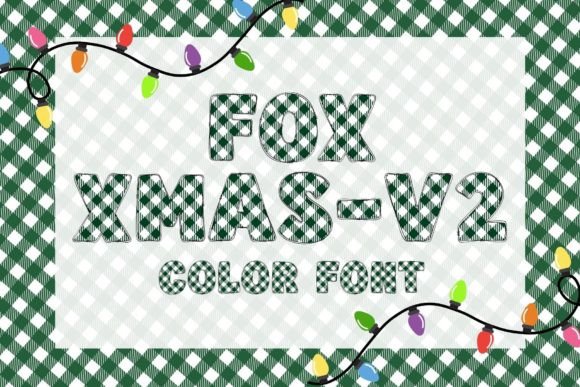
Welcome to the enchanting world of Fox Xmas-v2, a burst of colorful joy that will captivate your senses. Bask in the warmth of its playful spirit, perfect for adding a spark of cheer to your designs. Express yourself with Fox Xmas-v2, a font family that radiates sheer delight. Bring your creations to life with this vibrant and cheerful font that's perfect for any project that calls for a touch of fun and whimsy.
Immerse yourself in a realm of creativity with Fox Xmas-v2. Its colorful characters dance across the page, bringing life to your words. From eye-catching social media posts to delightful greeting cards, Fox Xmas-v2 transforms your designs into works of art. Let the magic of Fox Xmas-v2 transport you to a world where imagination knows no bounds.
Fox Xmas-v2 is more than just a font, it's an experience. Its carefully crafted letters evoke a sense of nostalgia and wonder, reminding us of the simple joys of childhood. Unleash your inner child and let the colors of Fox Xmas-v2 ignite your creativity. With every stroke of the pen, watch as your designs blossom into masterpieces.
Spread joy wherever you go with Fox Xmas-v2. Its intricate details and vibrant hues are guaranteed to spread cheer and brighten the day of anyone who sees it. Make a statement, convey a message, and create memories that last a lifetime. With Fox Xmas-v2, your words will leave an unforgettable mark.
Fox Xmas-v2 is the perfect choice for those who seek to make a statement, to express their individuality, and to add a touch of charm to their creative projects. Let your imagination soar and let Fox Xmas-v2 be your guide on this enchanting journey. Discover the endless possibilities that await you with Fox Xmas-v2, the font that brings a smile to your face.